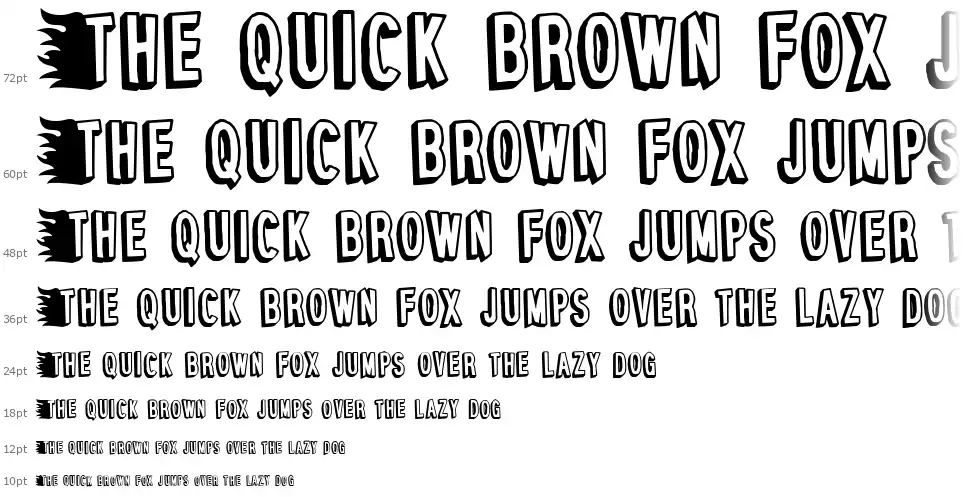
Pepperoni Pizza Font . Pepperoni pizza is a captivating display font that exudes a delightful fusion of classic and contemporary styles. In fancy > fire, ice. Pepperoni pizza schriftart | dafont.com english français español deutsch italiano português. Looking for pepperoni pizza fonts? Pepperoni pizza is a font. Click to find the best 2 free fonts in the pepperoni pizza style. 382,192 downloads (16 yesterday) 9 comments free for personal use. The typeface contains 1 file and supports 12 languages. Every font is free to download! Pepperoni pizza was developed 28fonts.